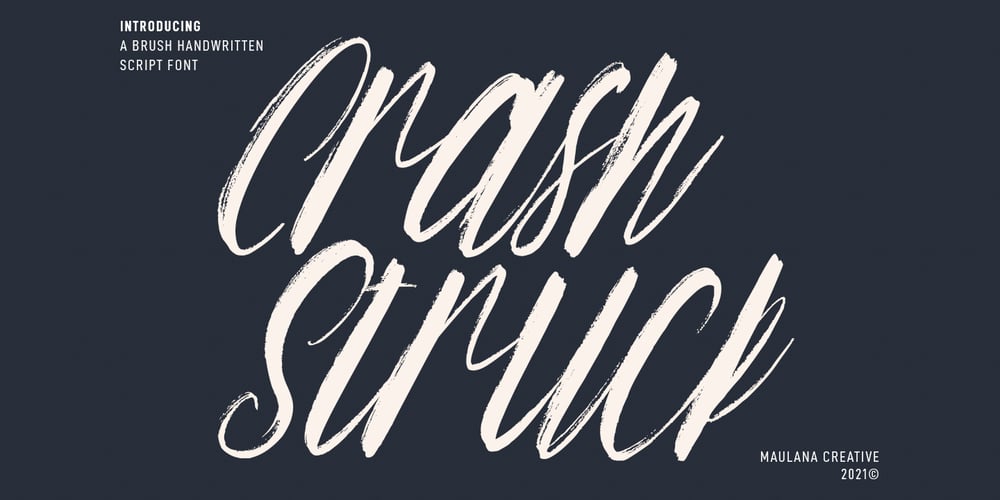
Crash Struck
Crash Struck font
Crash Struck Font Family was designed by Gilang Maulana and published by Maulana Creative. Crash Struck contains 1 styles and family package options. Crash Struck is a casual brush script font. With regular rough brush stroke, fun character with some of ligatures. To give you an extra creative work. Crash Struck font support multilingual more than 100+ language. This font is good for logo design, Social media, Movie Titles, Books Titles, a short text even a long text letter and good for your secondary text font with sans or serif. Make a stunning work with Crash Struck font. Cheers, MaulanaCreative